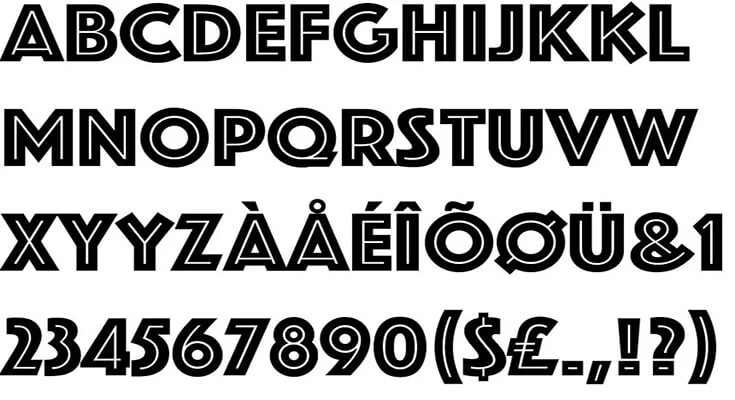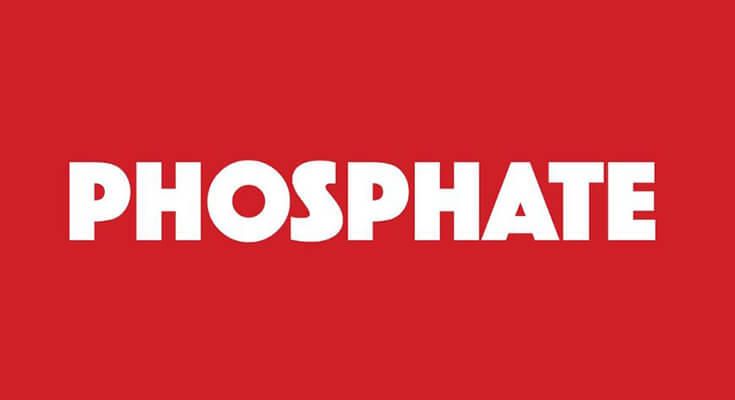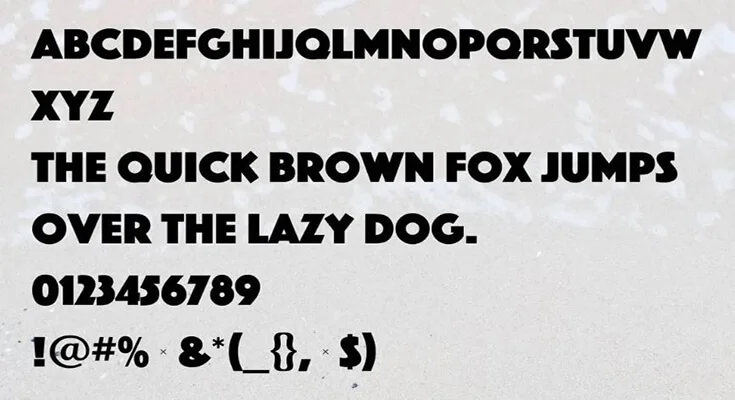
Phosphate Font is a sans serif typeface. The designers of this bold typeface are Steve Jackaman and Ashley Muir and released through Red Rooster Collection in the year of 2011.
This font family has got lots of great text highlights and a high level of legibility. This aspect alone has many designers looking forward to it.
Phosphate font is only available in all caps and has only two styles. However, both types have RR inline and RR solid, open-type features, and standard texture ligatures and highlights.
This font is suitable for both web and print formats. Going through the deep analysis of Phosphate, you will surely be surprised by the uniformity of the letterforms and the dedication of the designers working on it.
The font’s thick and curved lines create a sense of motion and energy, making it a popular choice for designs that aim to capture attention and evoke a strong emotional response.
This typeface is perfect for creating quotes, product titling, magazine and newspaper titles, website headers and footers, shop store names, and video game titles. In fact, Phosphate fonts can be used in so many different ways that it’s hard to know where to start.